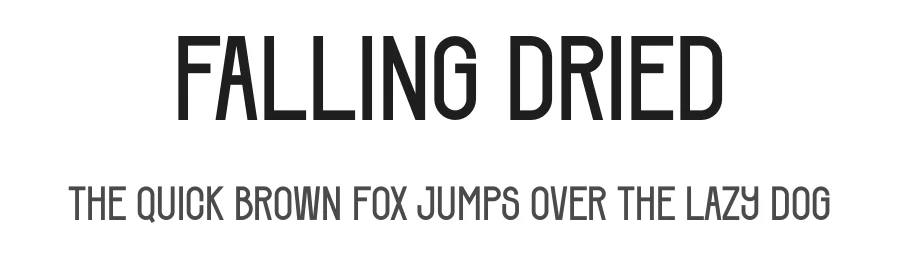
About Fabulouscity Font
Fabulouscity Specifications
| Font Family | Fabulouscity Demo |
| Full Name | Fabulouscity Demo Bold |
| Designer | Nouval & Sarah Suci P |
Fabulouscity supports 168 languages.
Fabulouscity Font is a versatile sans-serif font that works for both headings and body text. Pair it with a contrasting serif or slab serif font to add visual interest and a clear distinction between titles and body copy.